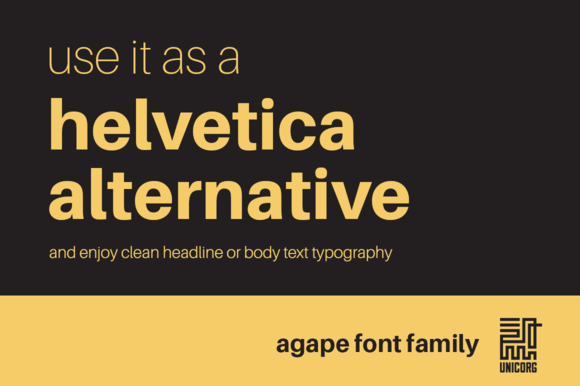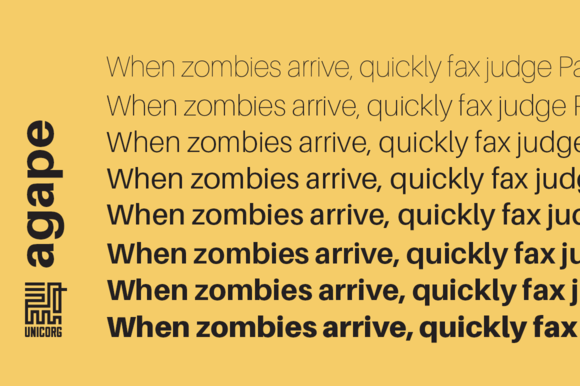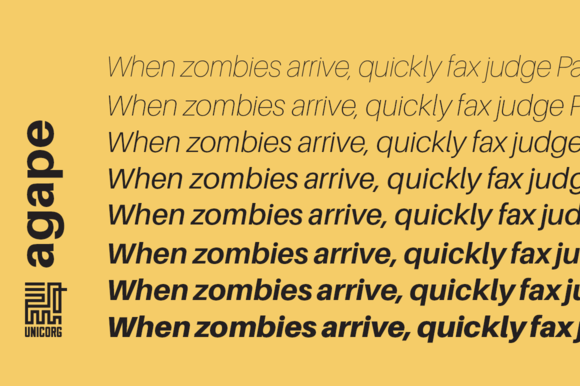
Agape Font Family
Agape is a sans-serif, neo-grotesque Helvetica alternative. INCLUDES LIGATURES & SUPPORT FOR GERMAN/SCANDINAVIAN CHARACTERS It is available in 8 weight variations, from Black to UltraLight.
Also all weights are available in Italic too. Total of 16 different fonts. The font family is most suitable for headlines of all sizes, as well as for text blocks that come in both maximum and minimum variations. Agape font styles are applicable for any type of graphic design in web, print, motion graphics etc and perfect for t-shirts and other items like posters, logos. The package contains following fonts in Desktop and WebFont formats (.ttf .svg .eot .woff): Available Weights